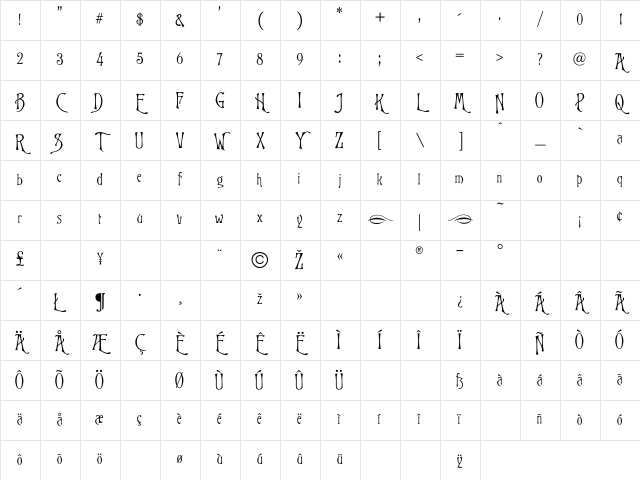
Glorietta Regular Free Font
Glorietta Regular
Foundry: Digitized by Dan X. Solo. Software Dover Publications, Inc
Glorietta Family
Glorietta Regular
Complete Glorietta Regular glyph index. Displaying only characters natively supported by Glorietta Regular font.
Design Context for Glorietta
Glorietta is a composed and adaptable typeface that performs quietly and consistently across a wide range of design contexts.
Who designed the Glorietta Regular font?
This font was published by Digitized by Dan X. Solo. Software Dover Publications, Inc. Check the technical specs section for copyright and designer details.